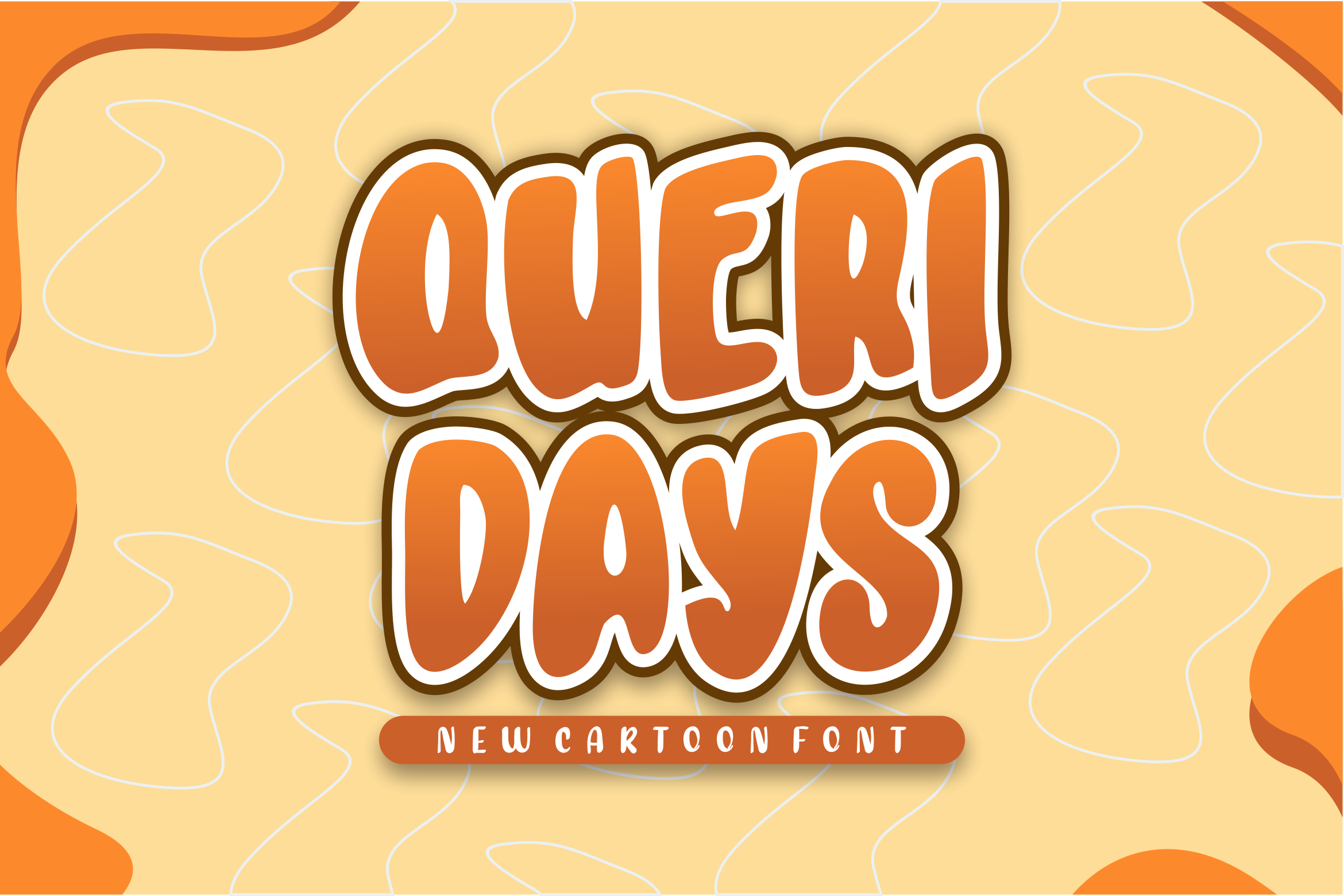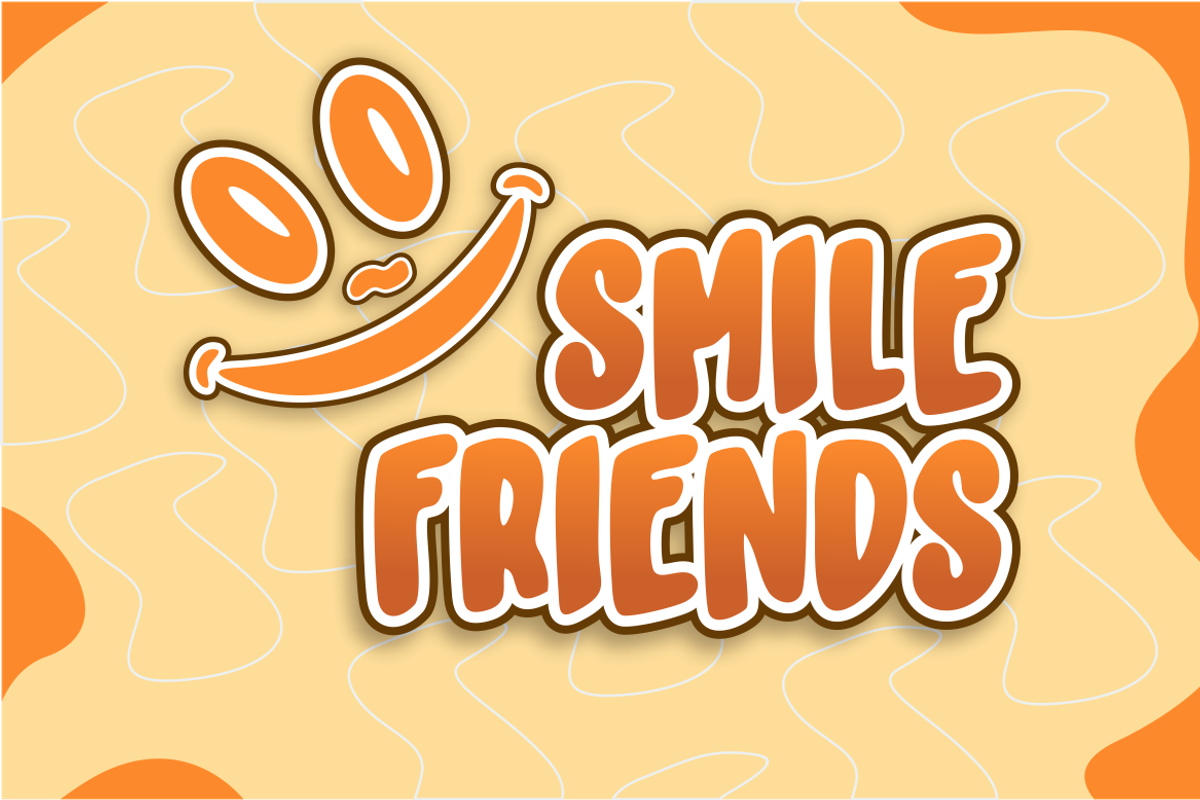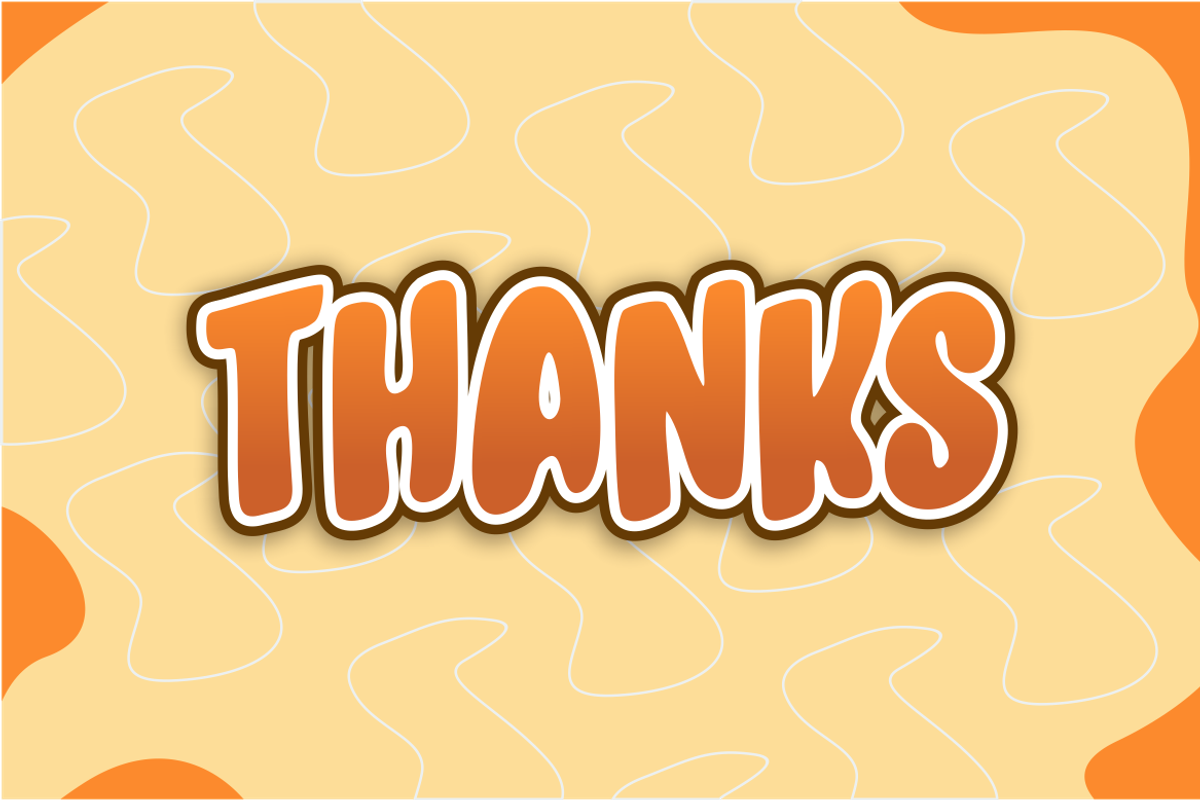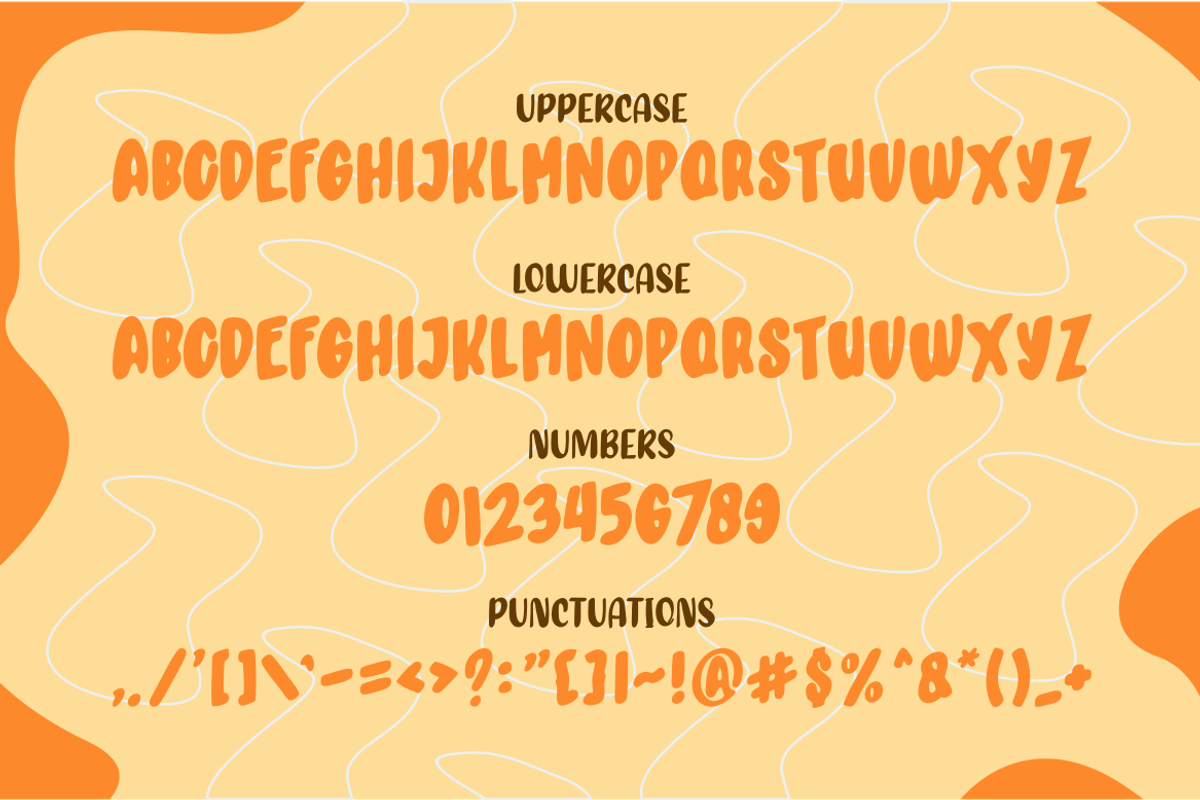
Queri Days Font
Introducing our new product Queri Days Font - Modern Font
Queri Days Font - Modern Font is a bold and authentic display font. The font is suitable for any branding project like logo, esport, and many more. outstanding in a wide range of contexts.